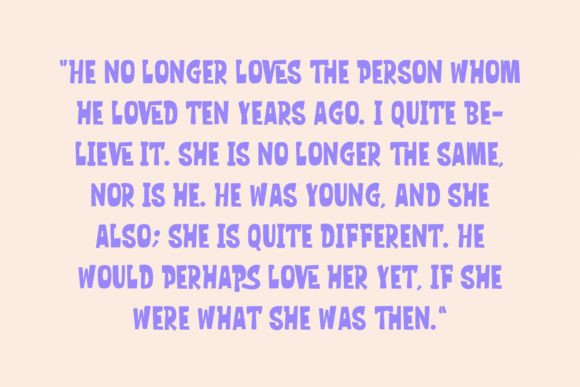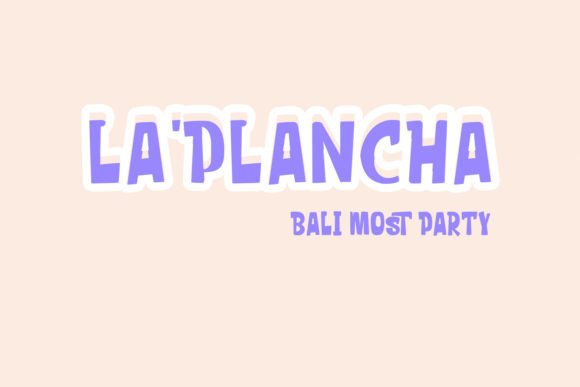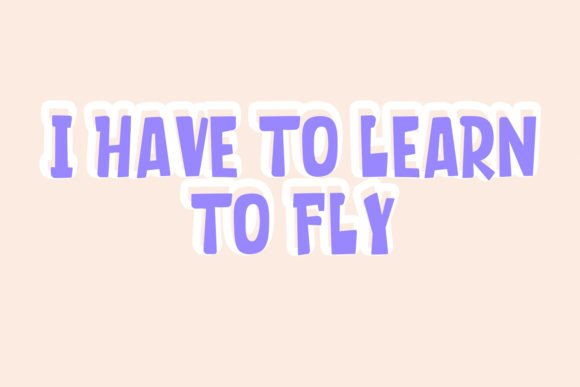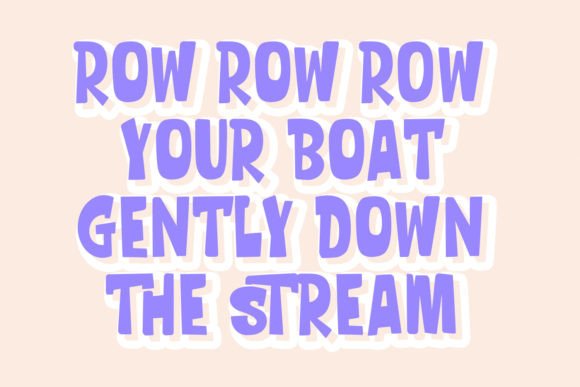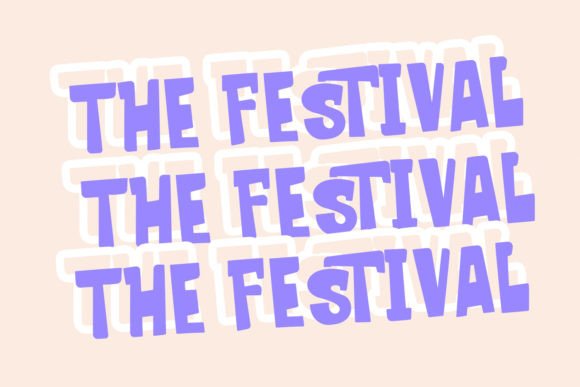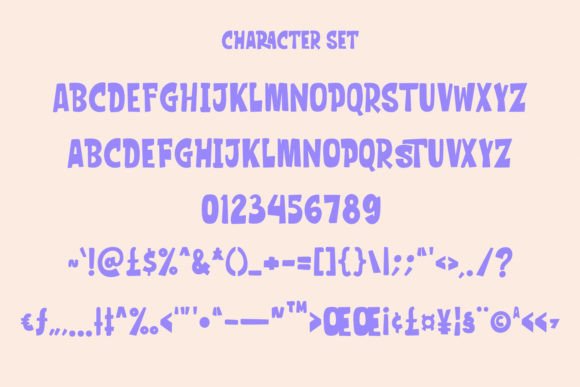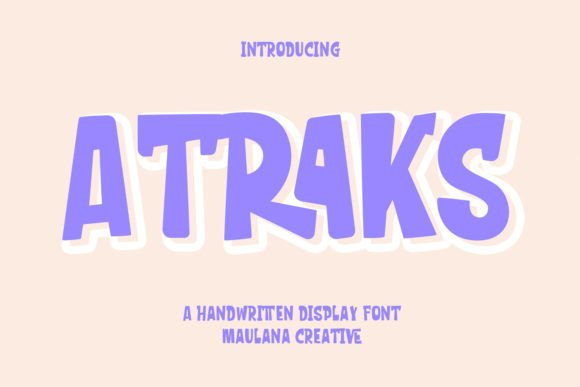
Introducing Atraks Font: The Ultimate Casual Slab Serif for Creative Projects
Are you tired of using the same old fonts for your design projects? Look no further than Atraks Font, a casual slab serif font that’s sure to add a touch of fun and creativity to your work. With its medium-low contrast strokes, ligatures, and alternates, Atraks is the perfect choice for designers and crafters looking to make a statement.
What Makes Atraks Font Special?
Atraks Font is a unique and versatile font that’s designed to be used for a variety of projects. Its casual, laid-back vibe makes it perfect for logo design, social media graphics, movie titles, book titles, and more. The font features medium-low contrast strokes, which give it a distinctive look that’s both elegant and playful. Additionally, Atraks includes ligatures and alternates, which allow you to add an extra layer of creativity to your work.
The Benefits of Using Atraks Font
So why choose Atraks Font for your next project? Here are just a few benefits of using this amazing font:
- Versatility: Atraks Font is suitable for a wide range of projects, from logo design and social media graphics to movie titles and book titles.
- Creativity: With its ligatures and alternates, Atraks Font gives you the freedom to experiment and try new things.
- Elegance: The font’s medium-low contrast strokes give it a sophisticated, elegant look that’s perfect for titles and headings.
- Readability: Atraks Font is easy to read, making it perfect for both short and long texts.
How to Use Atraks Font in Your Design Projects
Atraks Font is incredibly easy to use and can be incorporated into a variety of design projects. Here are a few ideas to get you started:
- Logo Design: Use Atraks Font to create a unique and memorable logo for your brand.
- Social Media Graphics: Add a touch of personality to your social media graphics with Atraks Font.
- Movie and Book Titles: Use Atraks Font to create eye-catching titles for your movie or book project.
- Secondary Text: Pair Atraks Font with a sans or serif font to add visual interest to your secondary text.
Tips for Getting the Most Out of Atraks Font
To get the most out of Atraks Font, here are a few tips to keep in mind:
- Experiment with Ligatures and Alternates: Don’t be afraid to try out different ligatures and alternates to add some extra flair to your design.
- Mix and Match with Other Fonts: Pair Atraks Font with other fonts to create a unique and visually interesting design.
- Play with Size and Color: Experiment with different sizes and colors to make your design pop.
Atraks Font is a versatile and creative casual slab serif font that’s perfect for designers and crafters looking to add a touch of fun and personality to their work. With its medium-low contrast strokes, ligatures, and alternates, Atraks is the ultimate choice for a wide range of design projects. So why settle for boring, generic fonts when you can make stunning work with Atraks Font?
Whether you’re a seasoned designer or just starting out, Atraks Font is sure to become a go-to in your font collection. So go ahead, get creative, and see what amazing things you can do with Atraks Font!